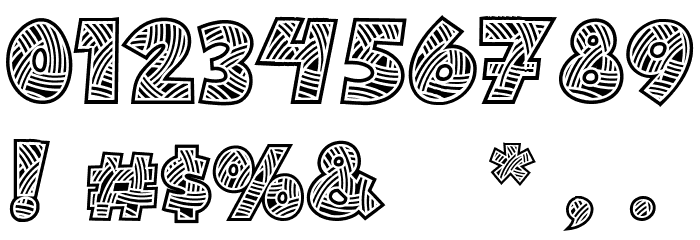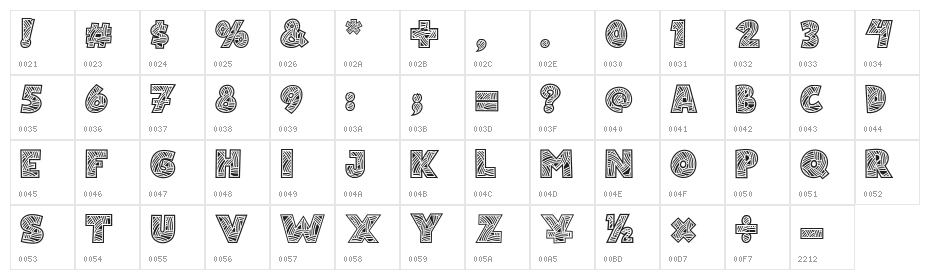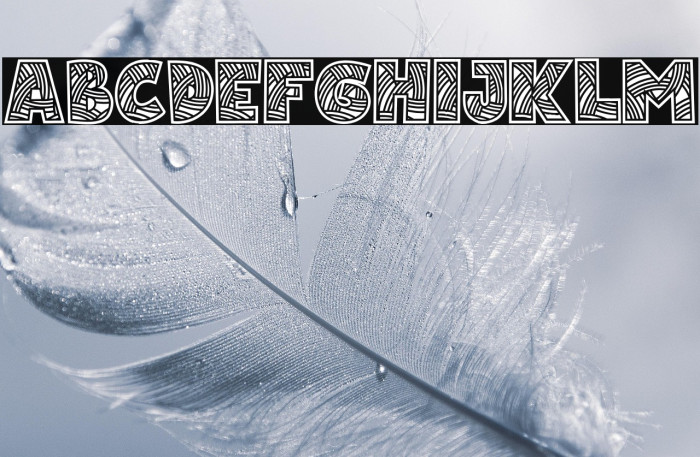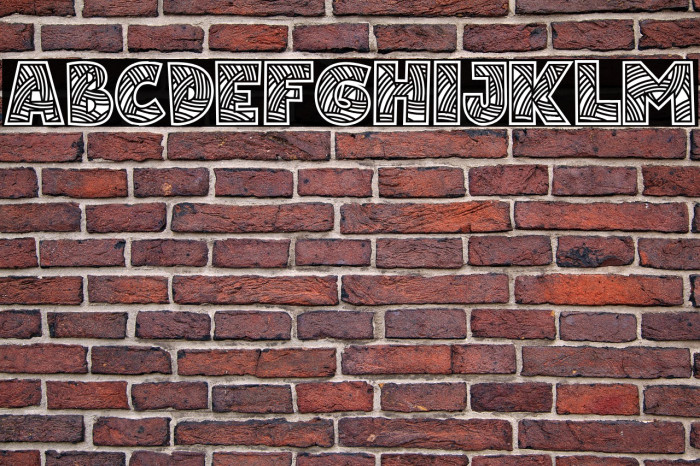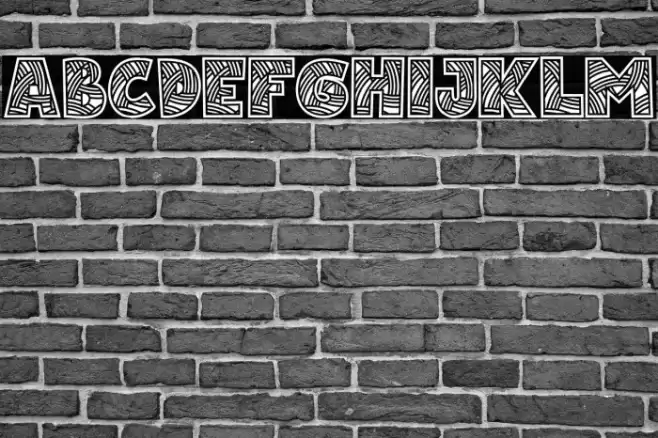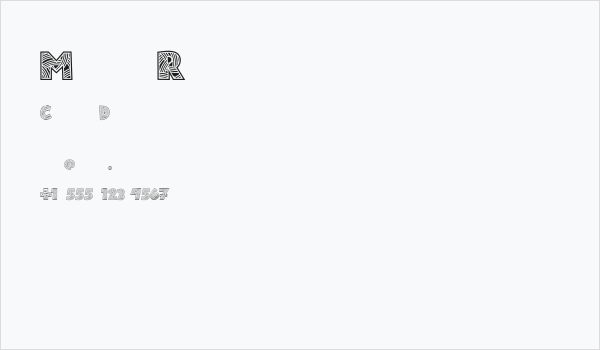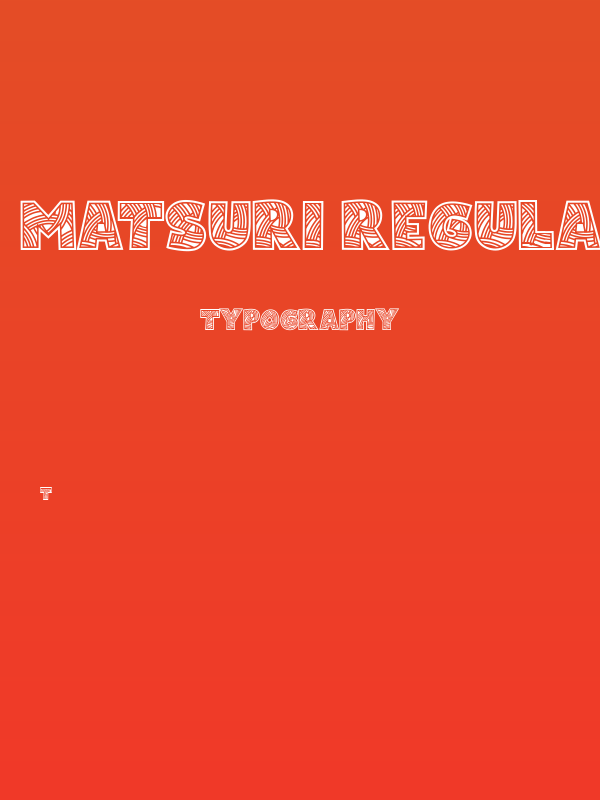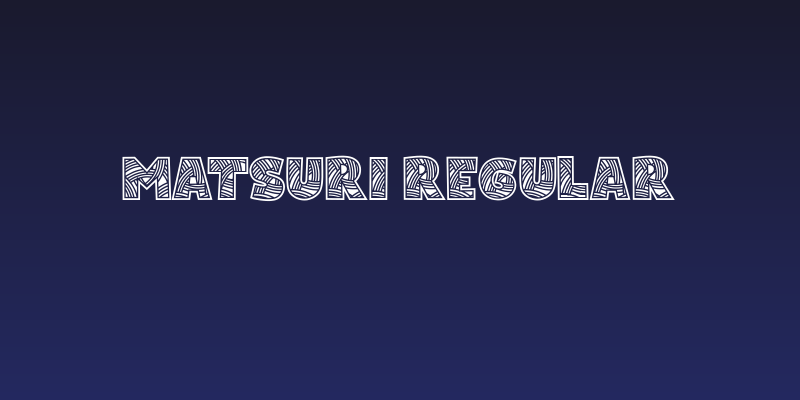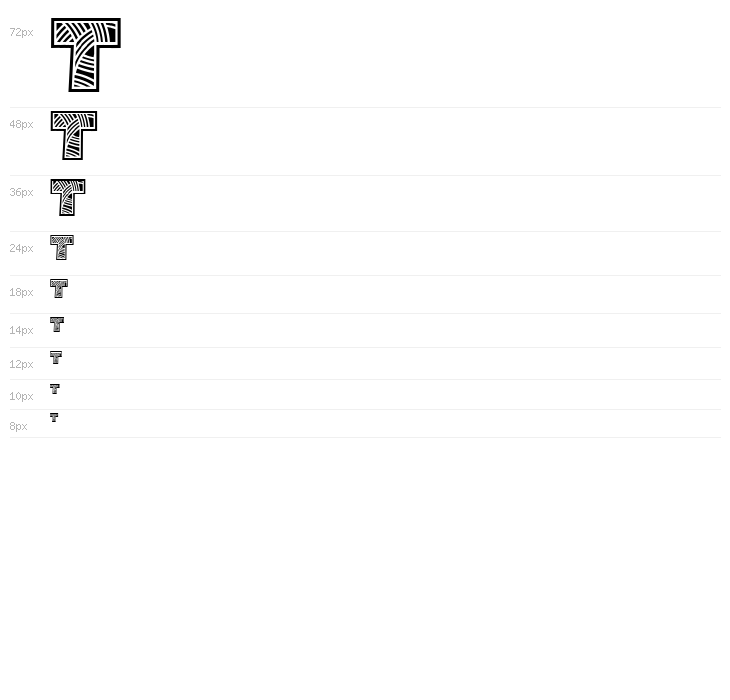
Matsuri Regular Font
Matsuri Regular Description
This font features a bold and decorative style with intricate line patterns filling each character. The uppercase letters are designed with a strong geometric structure, while the numbers and special characters maintain the same detailed pattern, creating a cohesive and visually striking appearance. The font's unique design elements make it stand out, with each character appearing as a piece of art. The consistent use of lines within the characters adds a sense of movement and energy, making it ideal for projects that require a bold statement.
| Proposed Projects | Ideal for poster designs, event invitations, branding projects, and any creative work that requires a standout, artistic font. |